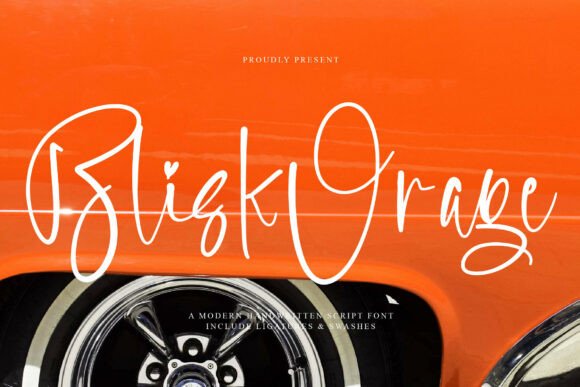
The Joy of Blisk Orage Font: A Playful Twist on Classic Handwriting
I’ll never forget the time I was working on a branding project for a children’s party planning service. I had to find the perfect font to capture the playful and whimsical vibe of the business. After hours of scrolling through font libraries, I stumbled upon Blisk Orage Font. Its charming swashes and heart-shaped details instantly brought a smile to my face. I knew right then and there that it was the perfect fit for the project.
An Honest Review of Blisk Orage Font
- ✨ The playful, cheerful twist on classic handwriting
- ✅ Charming swashes that add a touch of elegance
- 💕 The heart-shaped details that bring whimsy to every design
- 🎉 Perfect for personal branding, packaging, product labels, and Instagram posts
While Blisk Orage Font is an amazing addition to any design project, there are a few things to keep in mind:
- ⚠️ Some of the swashes and glyphs can be a bit finicky to work with, especially for beginners.
- 🤔 The font might not be the best fit for very formal or corporate designs, as it’s inherently playful.
The Story Behind Blisk Orage Font
Blisk Orage Font was designed with the intention of bringing a playful twist to classic handwriting. The designer, inspired by the joy of childhood and the beauty of handwritten letters, created a font that would capture the whimsy and charm of a bygone era. With its charming swashes and heart-shaped details, Blisk Orage Font is the perfect addition to any design project that requires a touch of playfulness.
Q: What is Blisk Orage Font best used for?
A: Blisk Orage Font is perfect for personal branding, packaging, product labels, and Instagram posts.
Q: Is Blisk Orage Font easy to read?
A: Blisk Orage Font is a script font, and as such, it may be more challenging to read in large blocks of text. However, it’s perfect for headlines, titles, and short paragraphs.